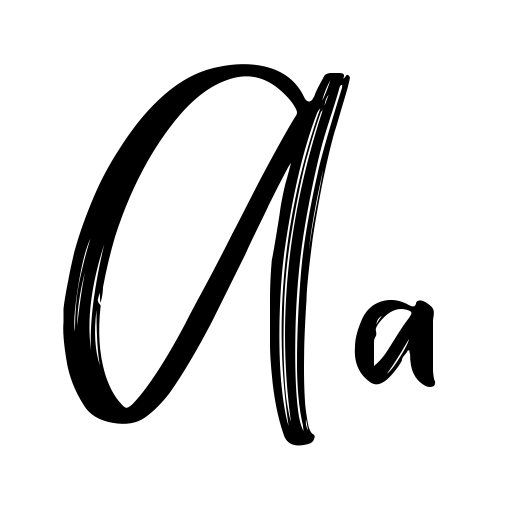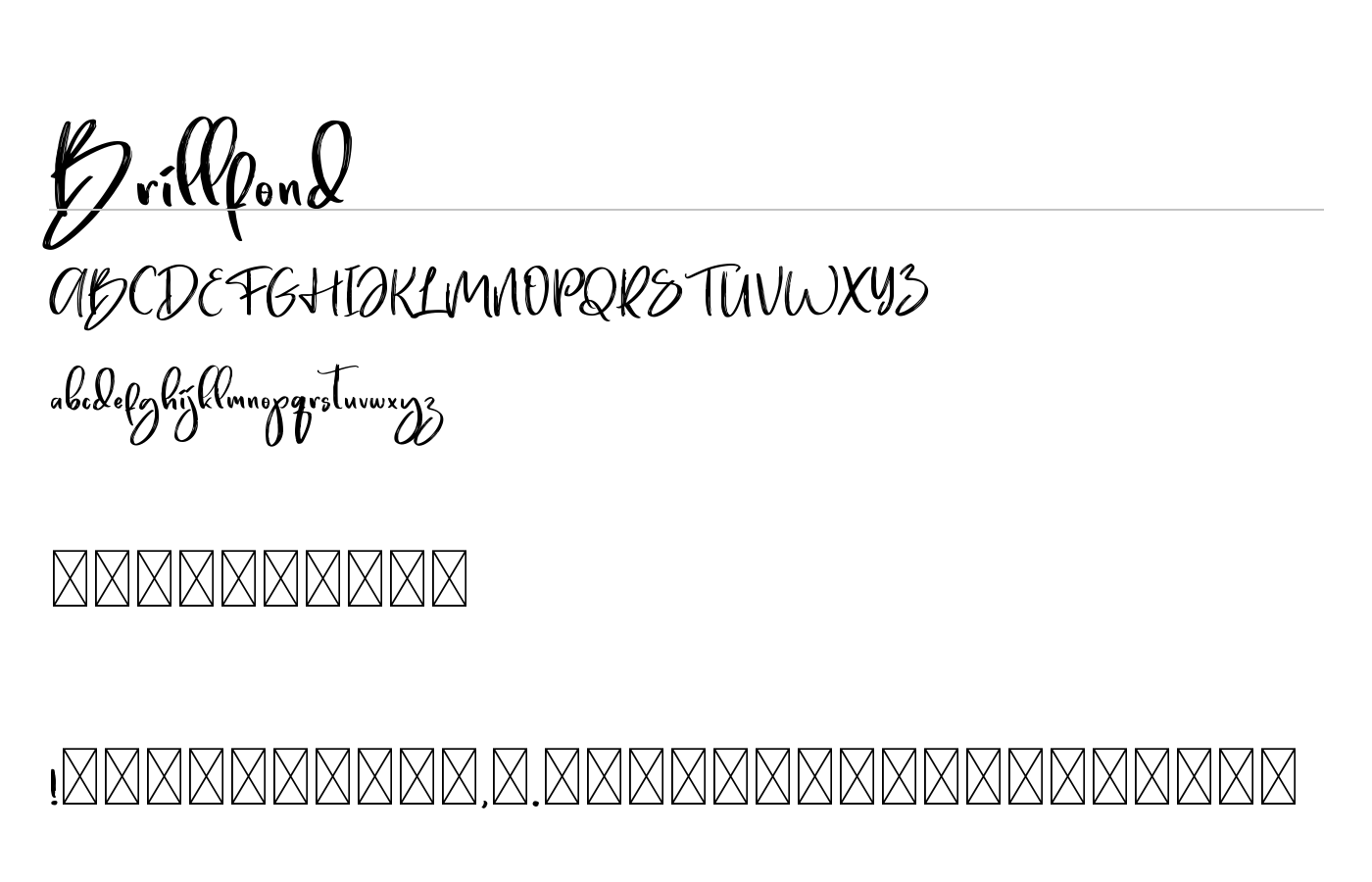
Brillfond is a playful and expressive handwritten script font featuring tall, fluid letterforms with a casual, brush-like stroke. Its irregular lines and varying thicknesses give it a lively, personal touch, making it ideal for creative projects, invitations, branding, or any design seeking a warm, artistic feel. This font works best in headlines and display text where its unique personality can truly shine.
Brillfond Font
About Brillfond Font